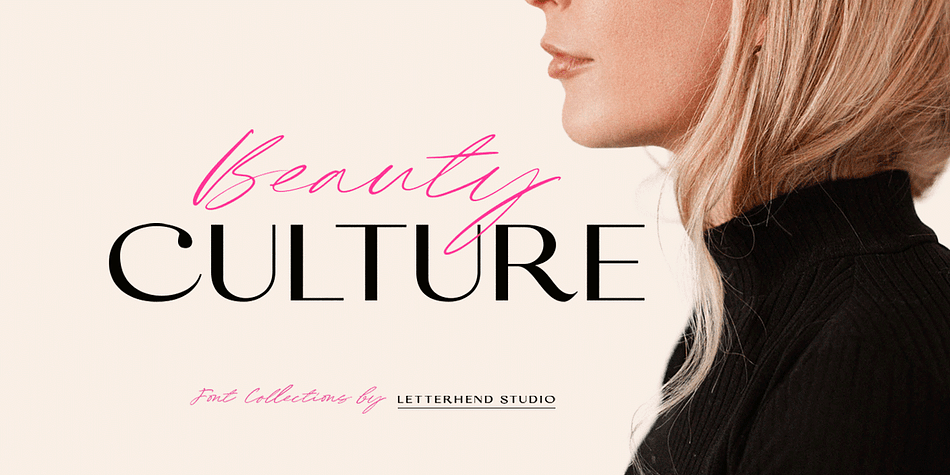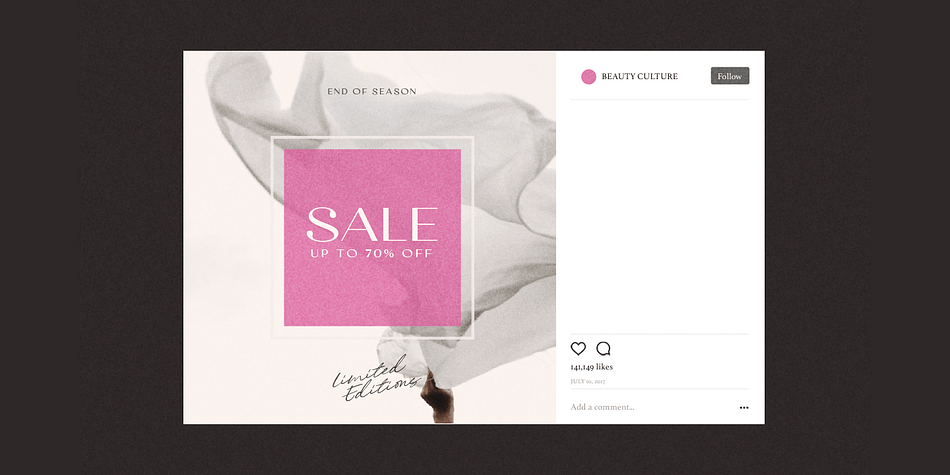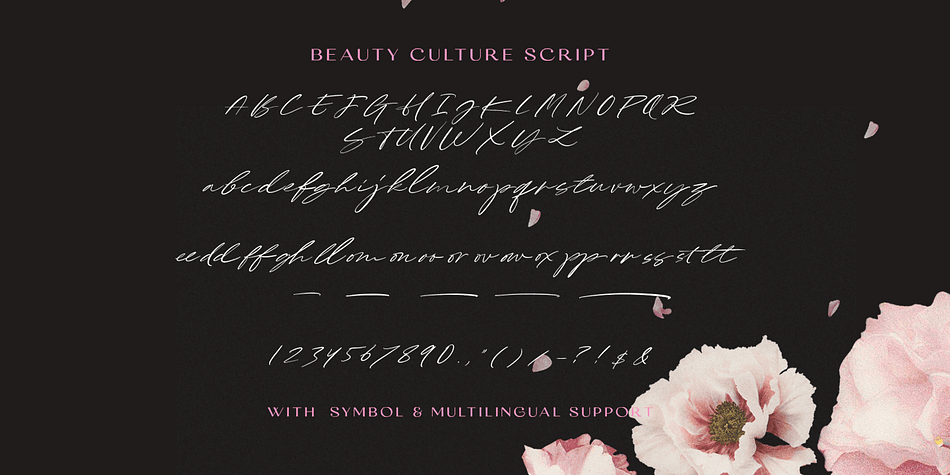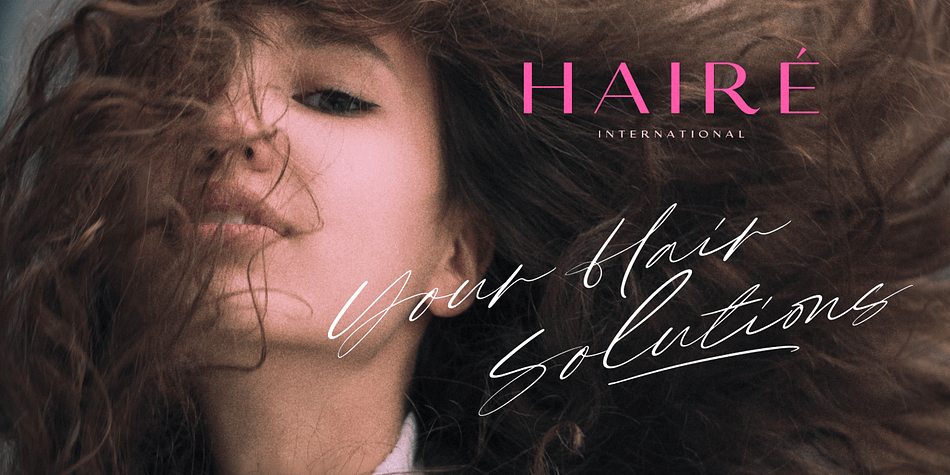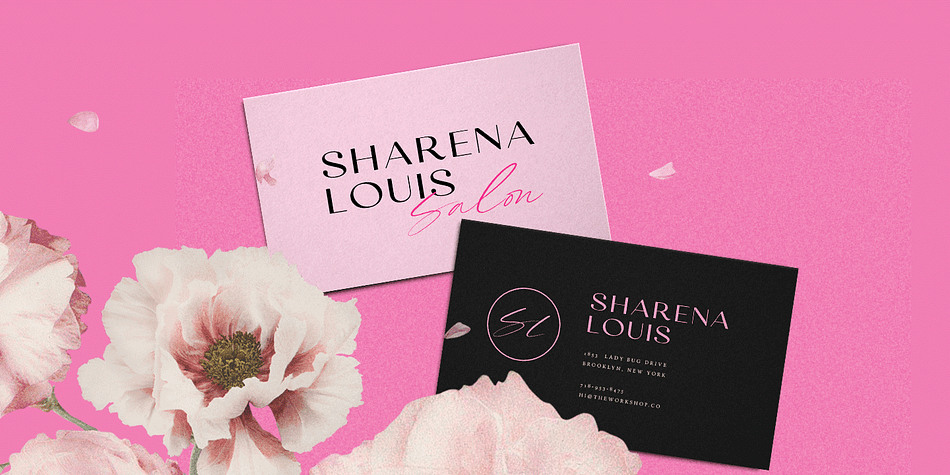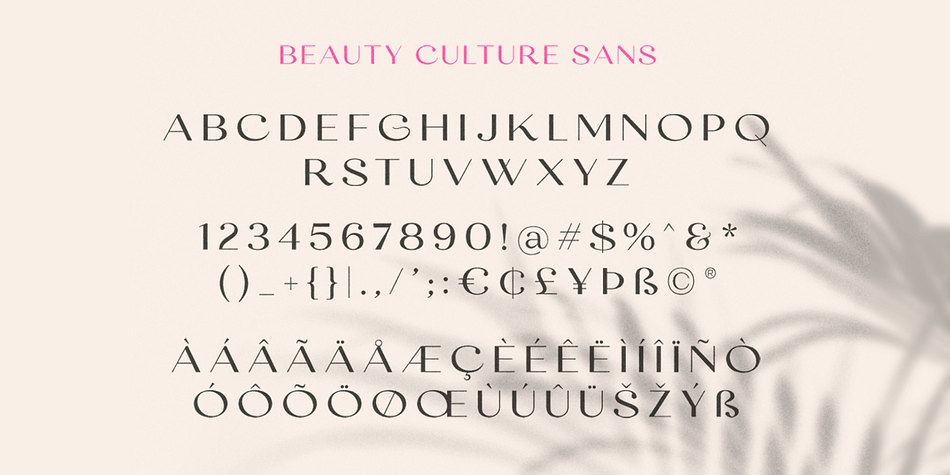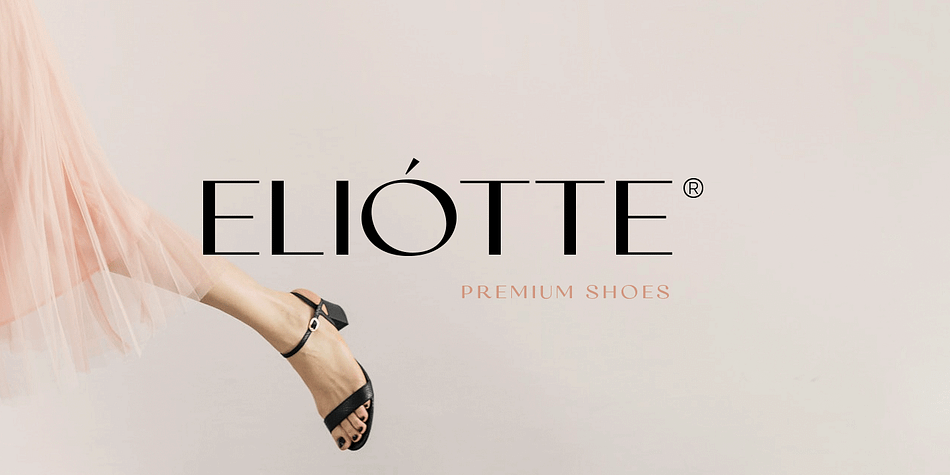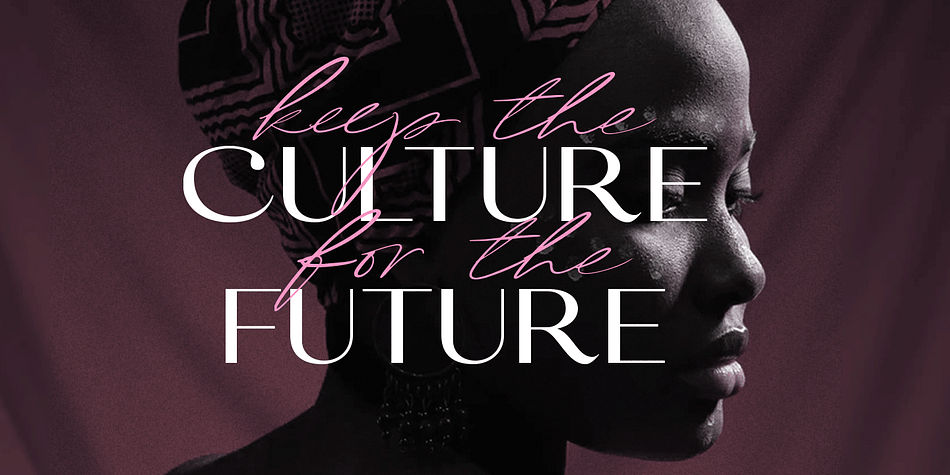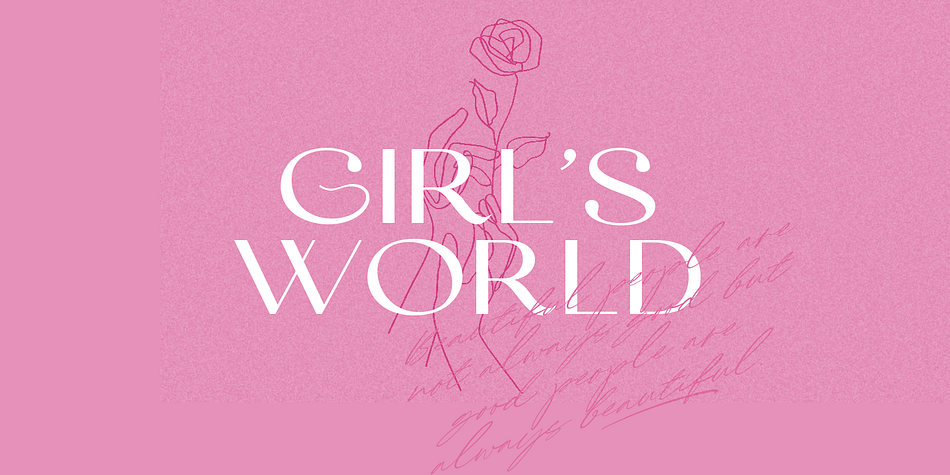
BEAUTY CULTURE
Designed by Hendry Juanda, Beauty Culture is a display sans, modern calligraphy and script font family. This typeface has two styles and was published by Letterhend Studio.
Beauty Culture is a pair of font that brings the modern and luxury feel. The Bold sans combined with the natural hand writing script are the perfect match for you who needs a typeface for headline, logotype, apparel, invitation, branding, packaging, advertising etc.
- alternates & ligatures
Styles Display Sans, Modern Calligraphy, Script